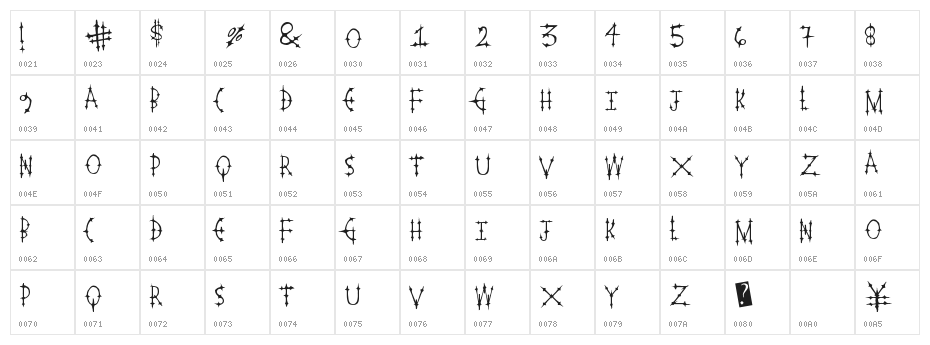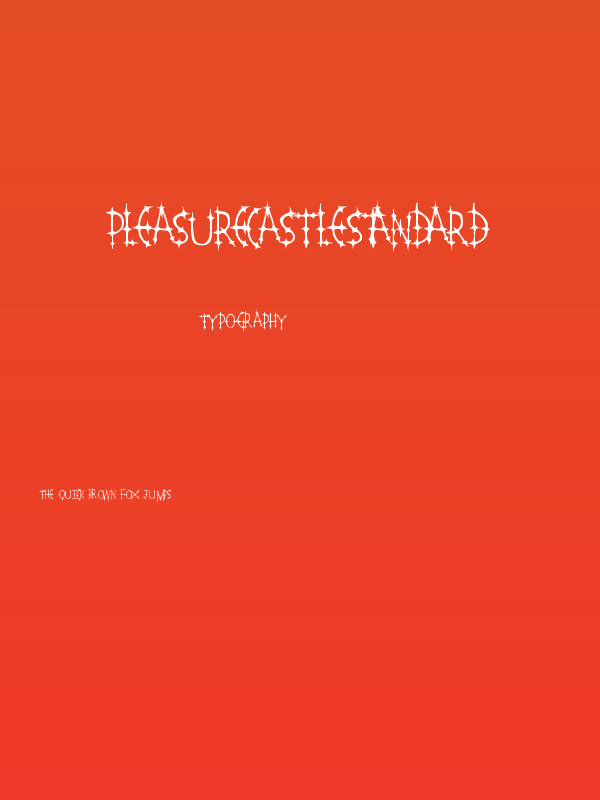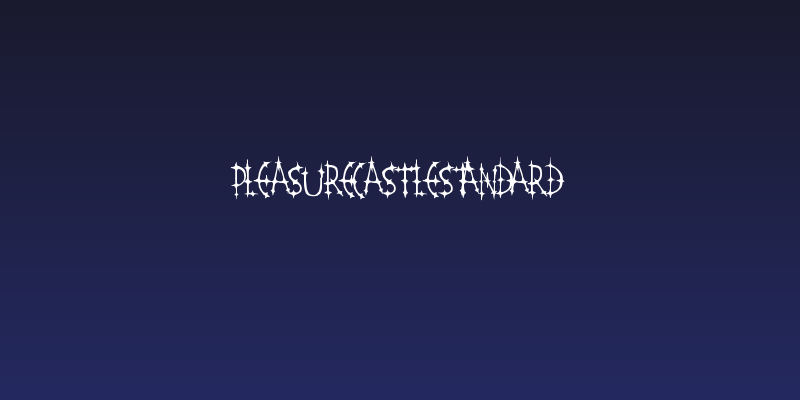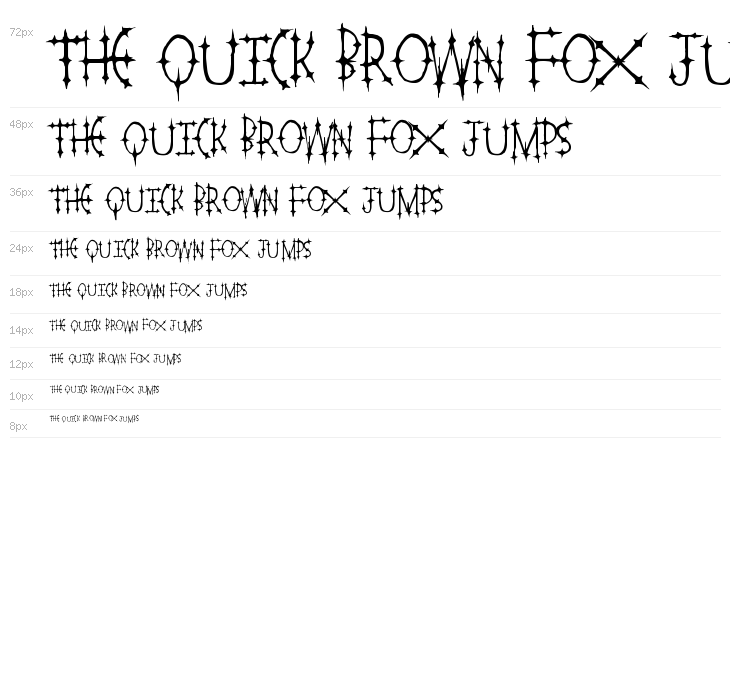
PleasureCastleStandard Font
PleasureCastleStandard Description
This font features a unique and edgy design, characterized by sharp, thorn-like extensions on each character, giving it a gothic and slightly menacing appearance. The letters are tall and narrow, with a consistent height across both uppercase and lowercase characters. The numerals and special characters maintain this distinctive style, ensuring a cohesive look throughout. The font's intricate details make it stand out, ideal for projects that require a bold and dramatic statement. Its decorative nature suggests a strong visual impact, suitable for specific thematic uses.
Overall StyleGothic, Decorative
Proposed ProjectsIdeal for horror-themed posters, gothic event invitations, album covers, and video game graphics.